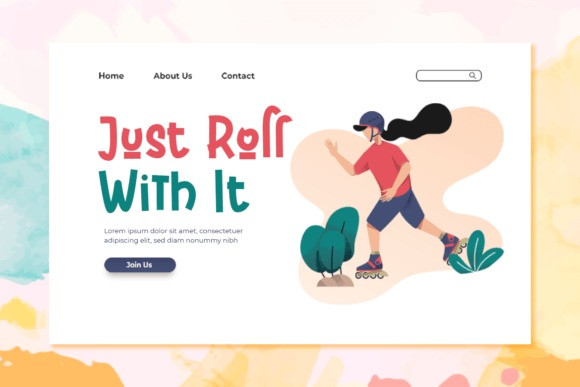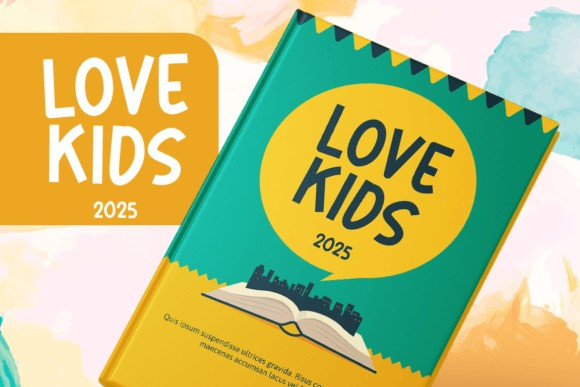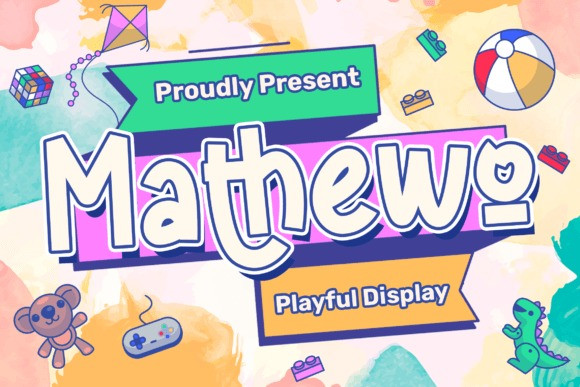
Mathewo Font
Mathewo Display Font  is a fun typeface that gives your projects a creative and playful vibe.
Mathewo is perfect for branding projects, logos, wedding designs, social media posts, advertisements, product packaging, product designs, labels, photography, watermarks, invitations, stationery, and any projects that need fun typography. This font is PUA encoded, which means you can access all of the glyphs and swashes with ease!